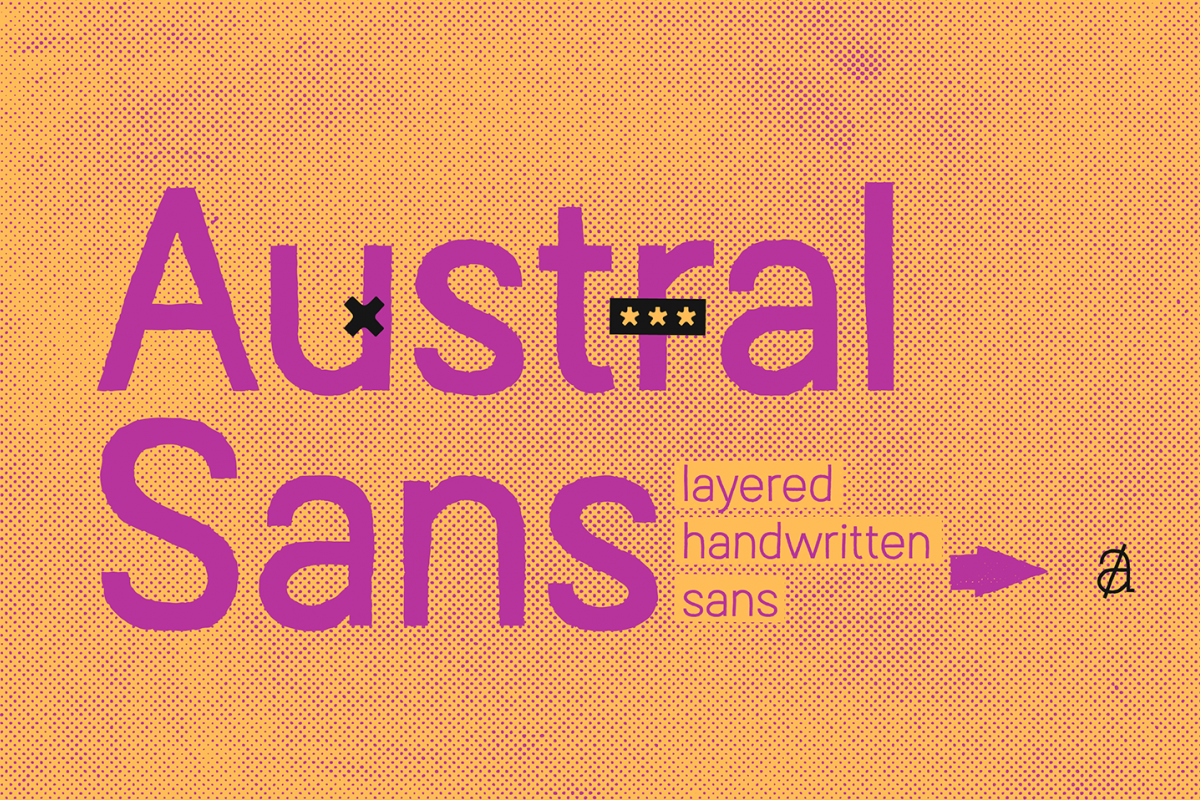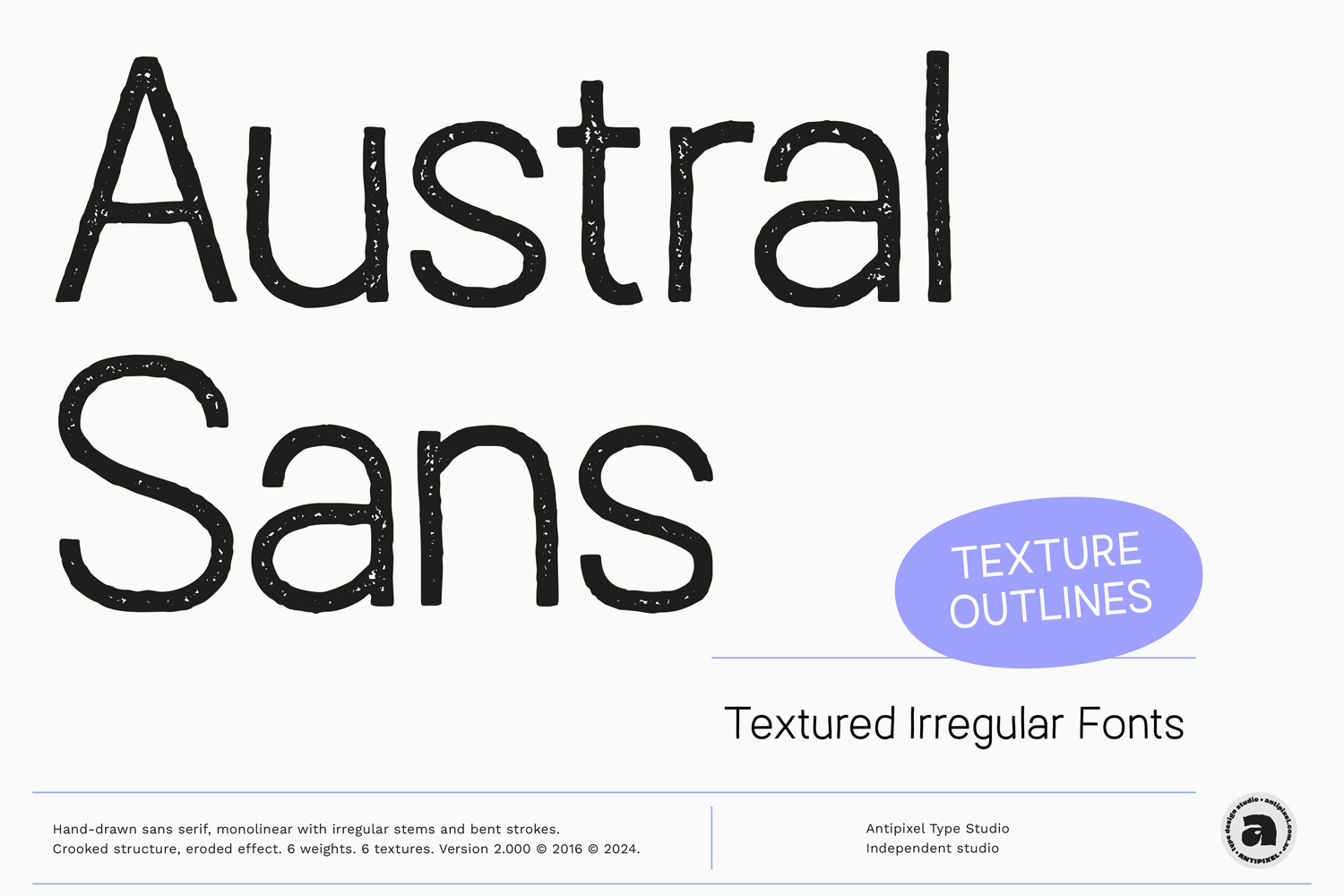
Austral Sans Textures | Handwritten Playful Sans
Austral Sans is a hand-drawn layered type family. It is casual, robust, and spirited. It is monolinear in spirit, despite having irregular stems that give the fonts an eroded effect (particularly exaggerated in the Medium styles). It was originally released in 2016, and in 2024 updated with version 2.000 that includes a new weight distribution and clean no-textured fonts, major updates on glyph support, OpenType features, corrections on the design of specific characters, and more. The Textured styles come in three weights, Thin, Light, and Medium, which all share the same crooked structure with bent strokes and irregular outlines.
The textures available are Rough, Blur, Rust, Stamp, and Maplines. 'Blur' is a softened style with round and heavy swelling at intersections. 'Rough' has solid irregular contours. 'Rust' has a deteriorated texture over the glyphs. 'Stamp' has the appearance of a print that didn't get enough ink. 'Maplines' is uniquely filled with topographic map-like lines.
Austral Sans has three sets of alphabets that slightly differ. These sequentially alternate to avoid repeating the same textured letterforms, having a more realistic irregular result. The Contextual Alternates feature is available in all the styles of this type family.
Some Austral Sans' features are Ligatures, Discretionary Ligatures, Stylistic Alternates, numerators, fractions, arrows, and a glyph coverage that ensures extended language support.